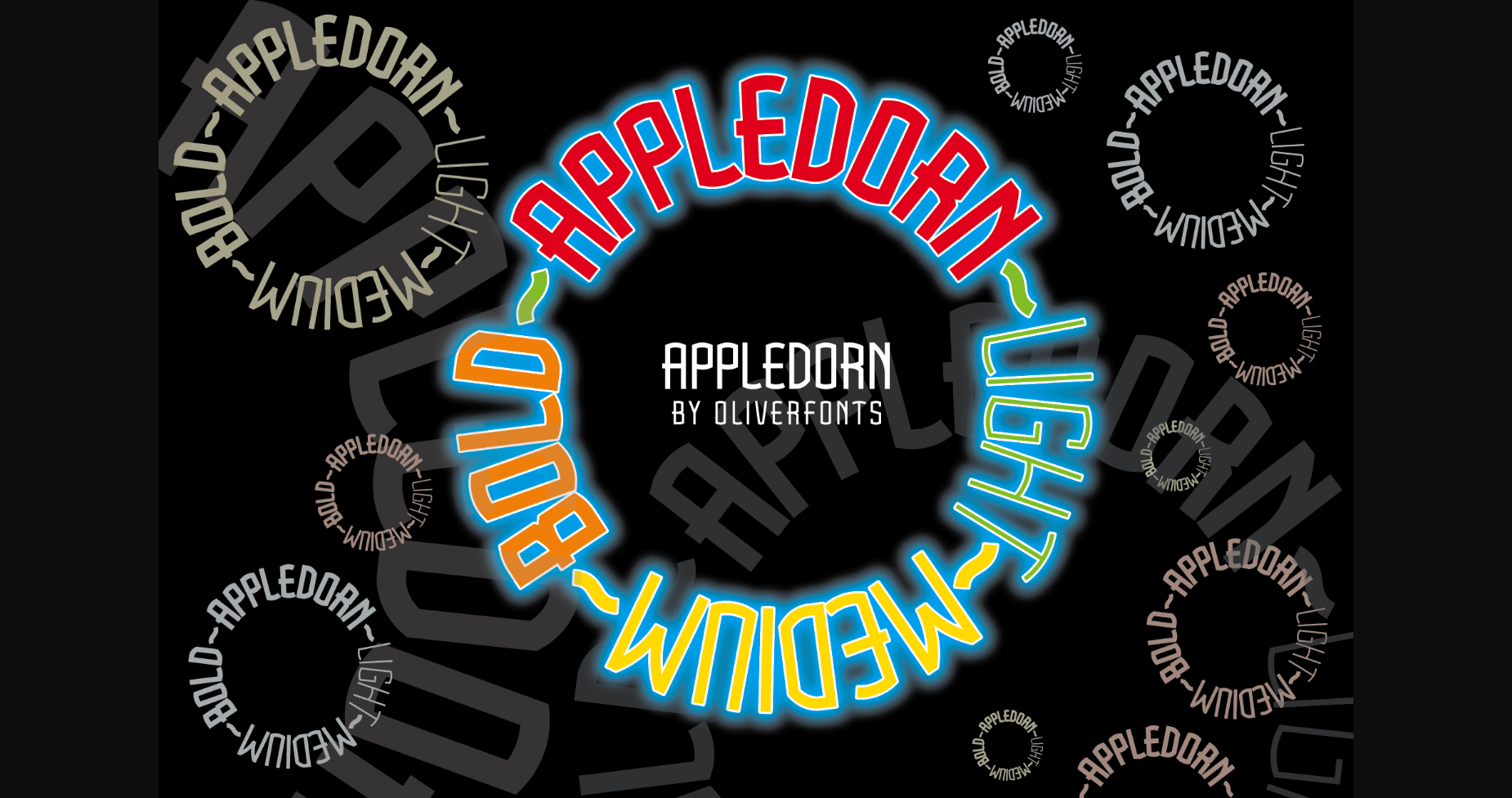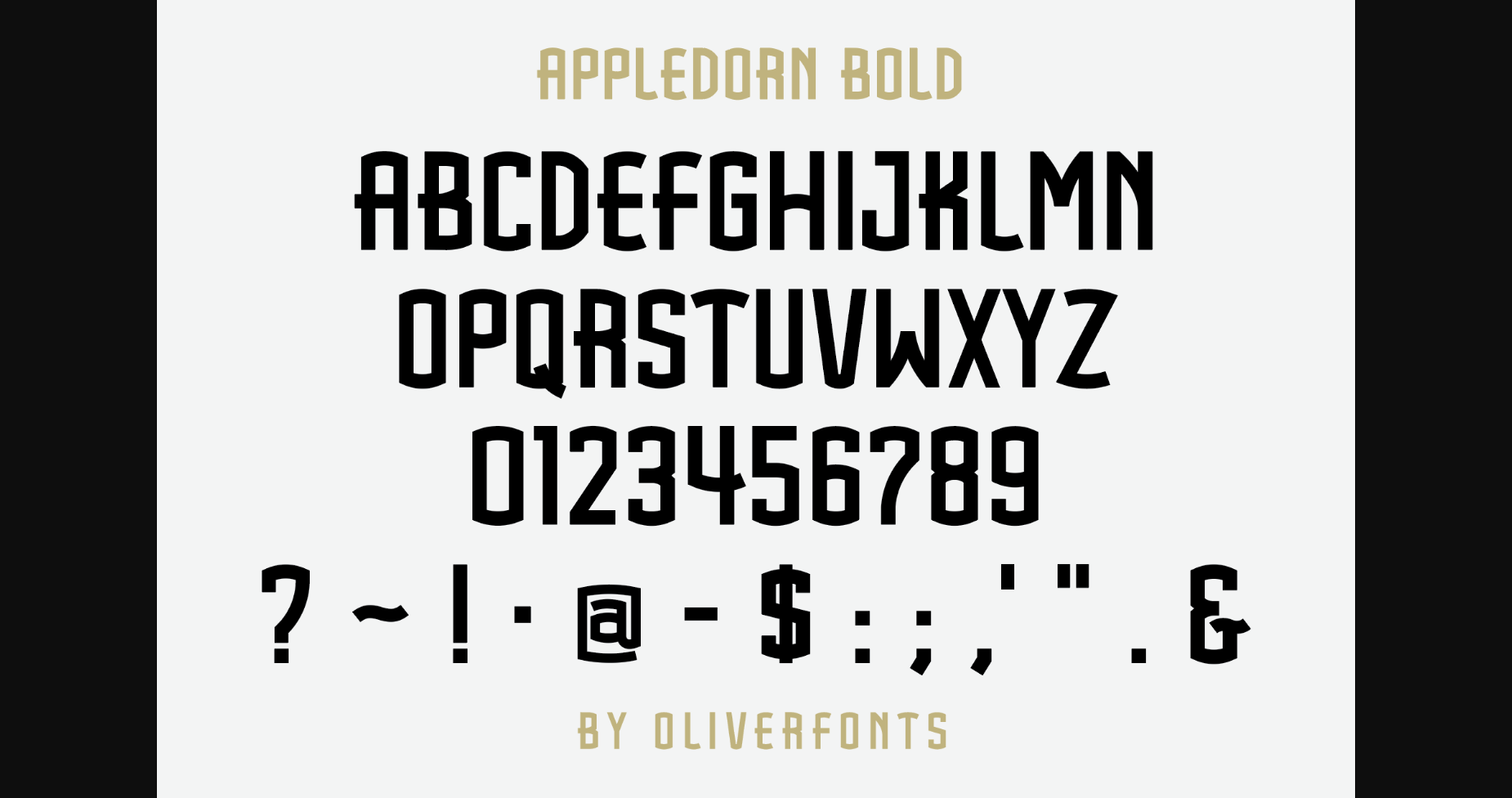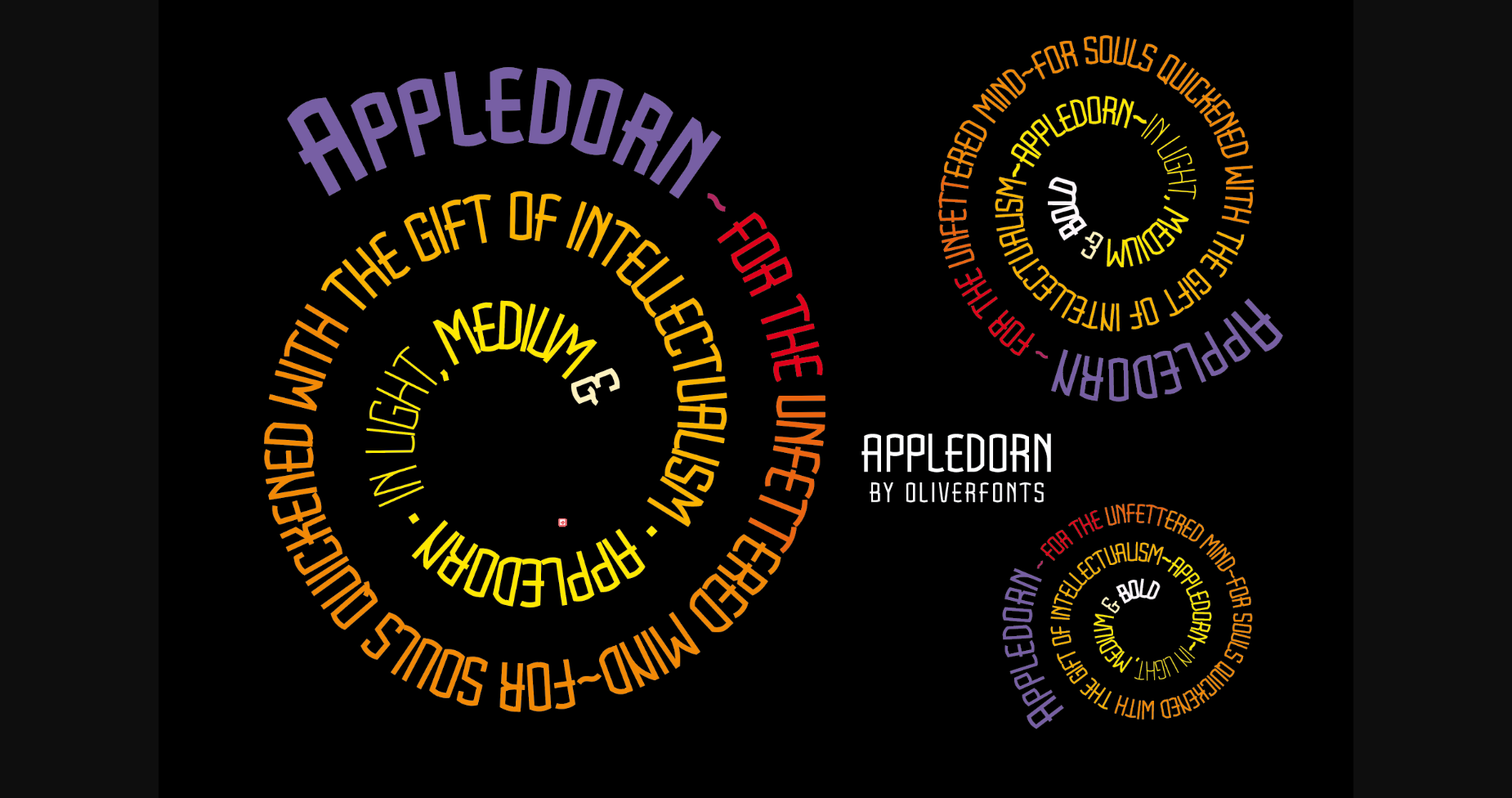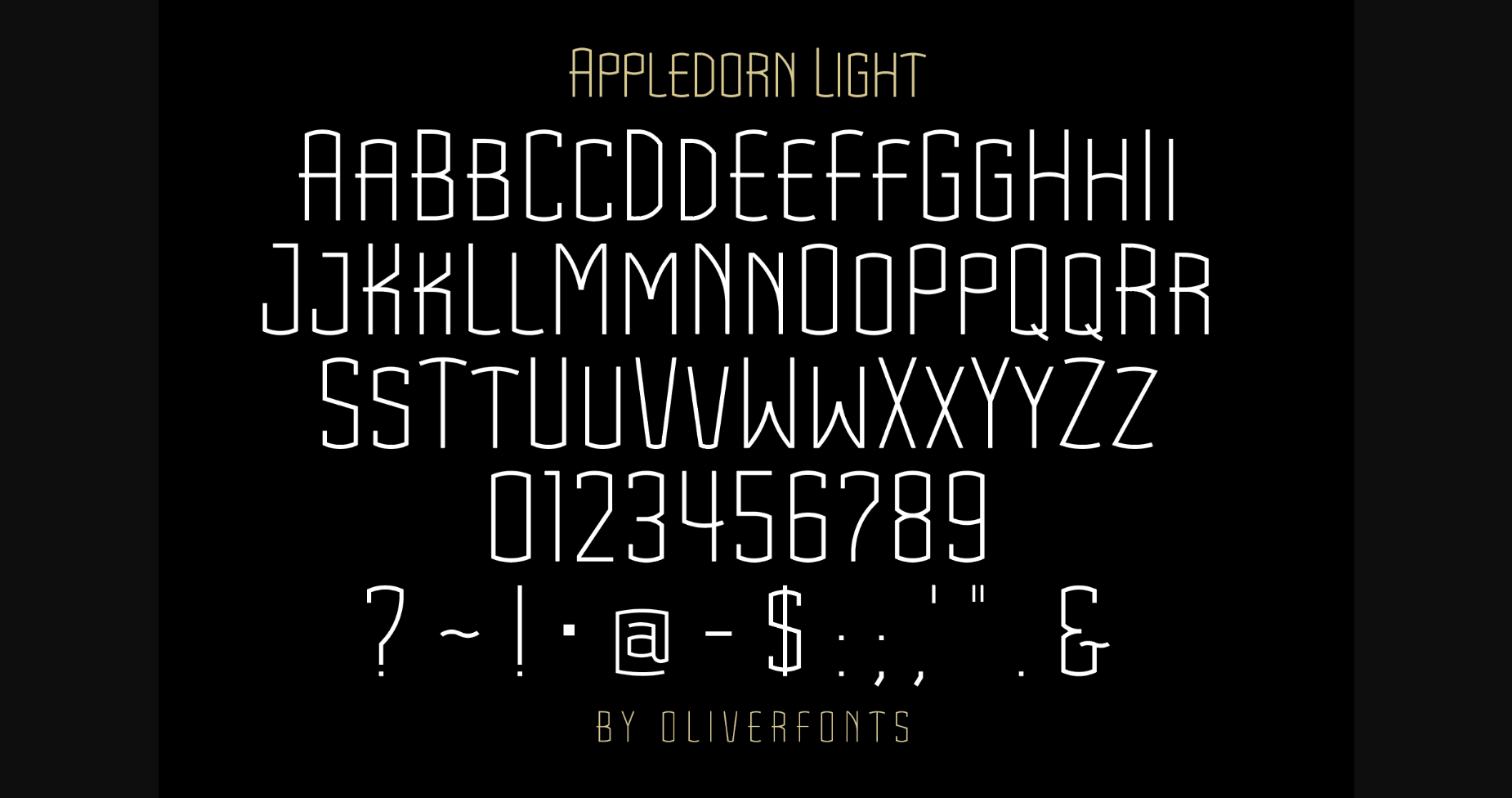
About Appledorn Font
Appledorn is an original, bold sans serif font with outstandingly unique characters. No matter the topic, Appledorn will be an incredible asset to your fonts’ library, as it has the potential to elevate any creation.